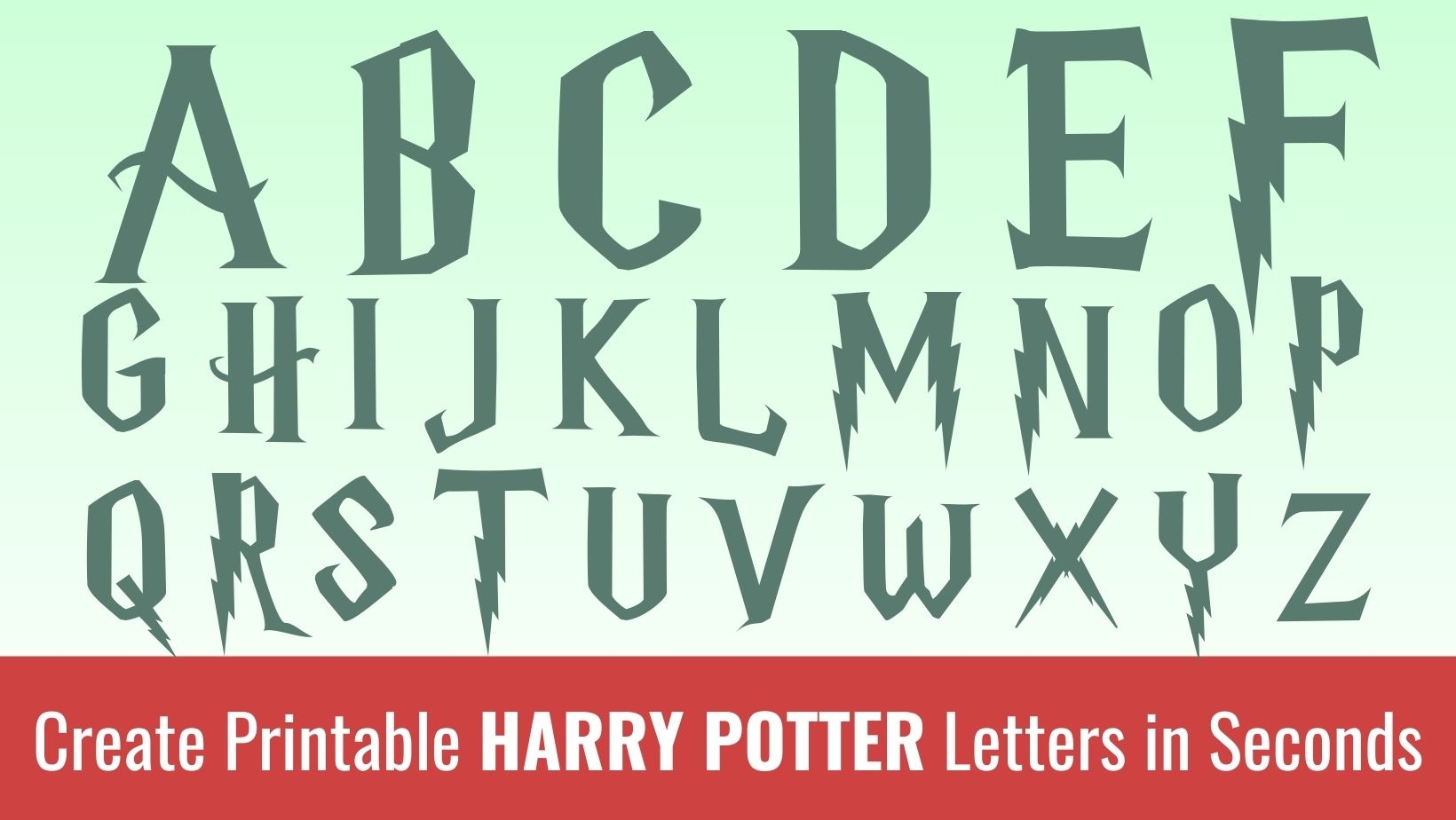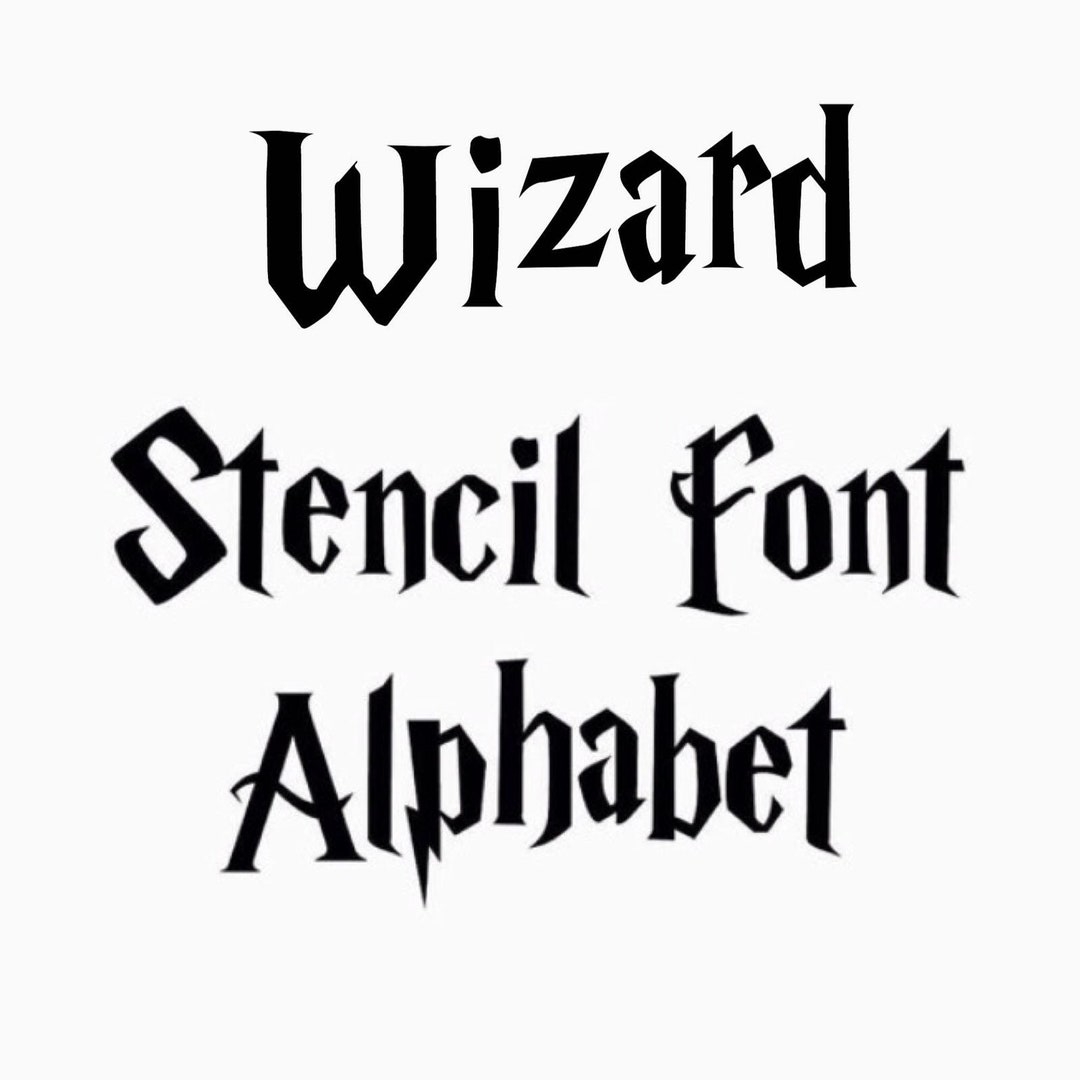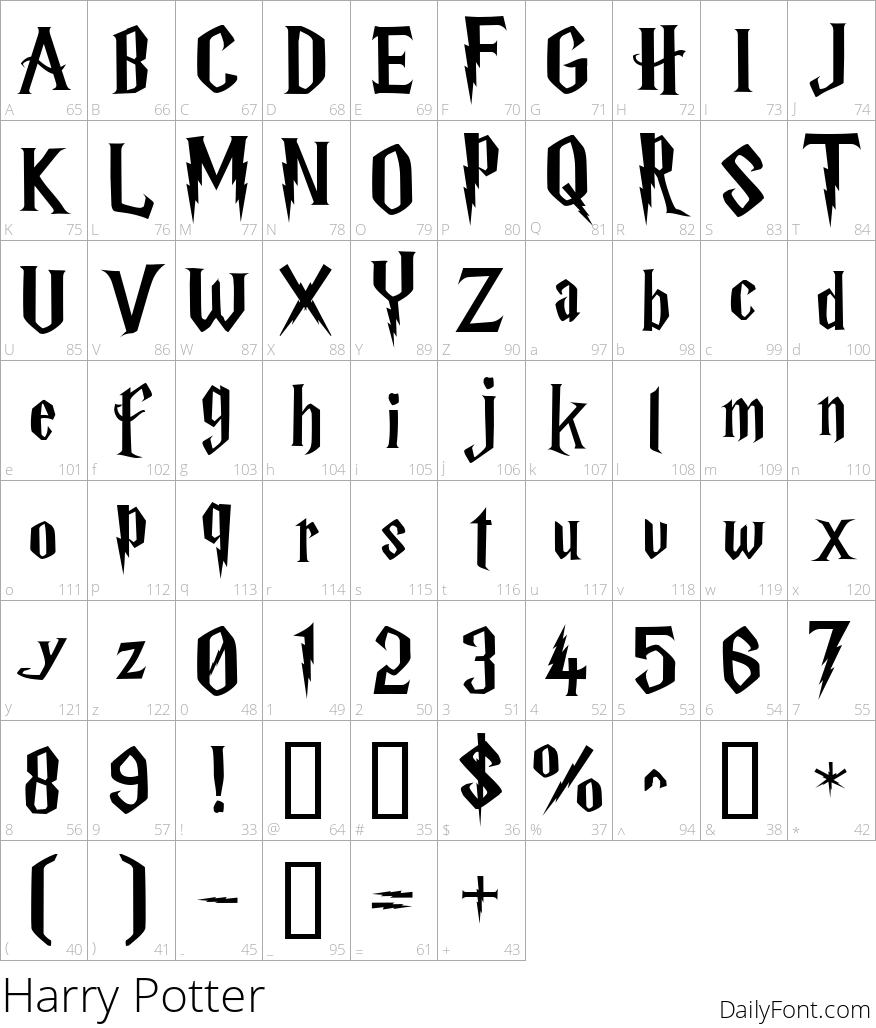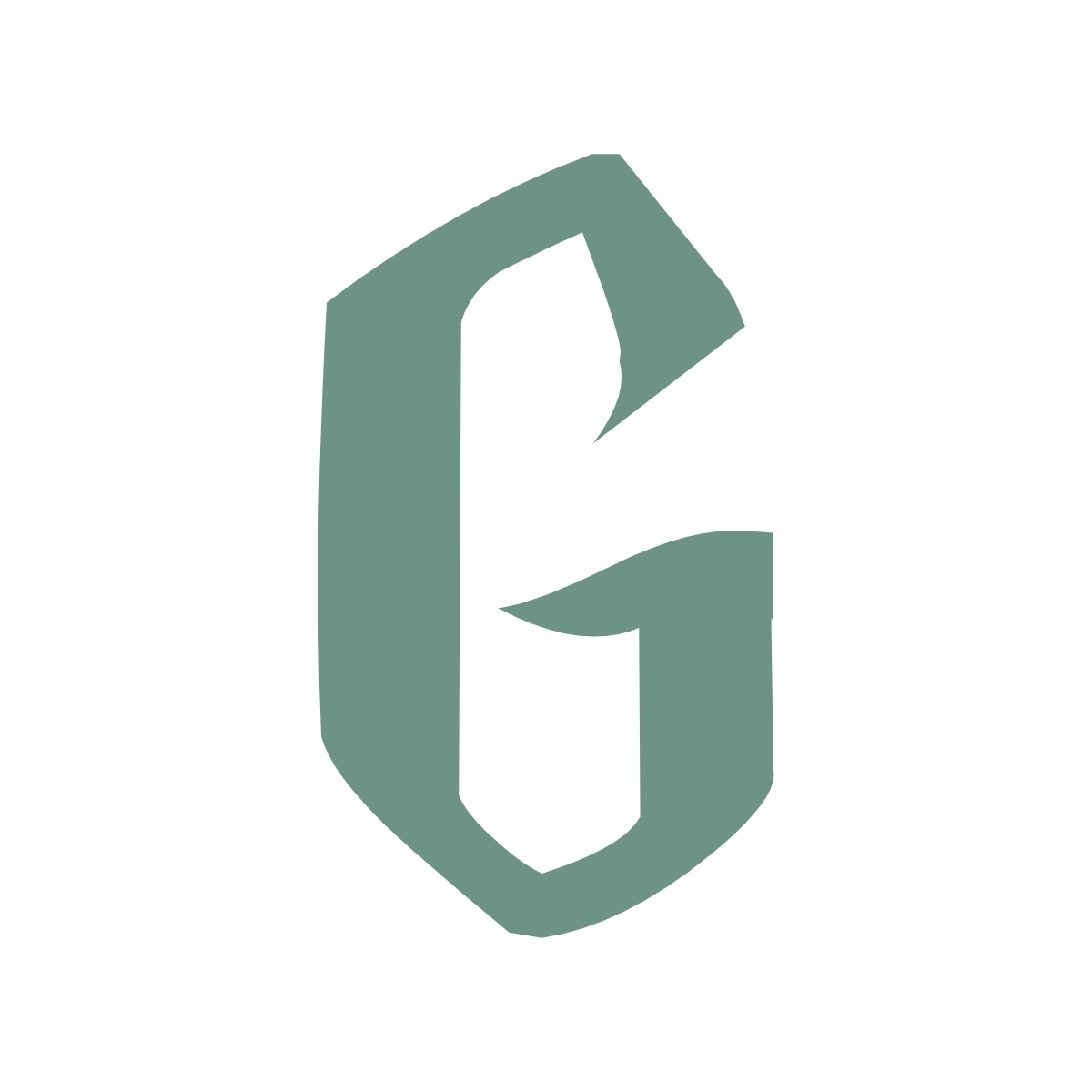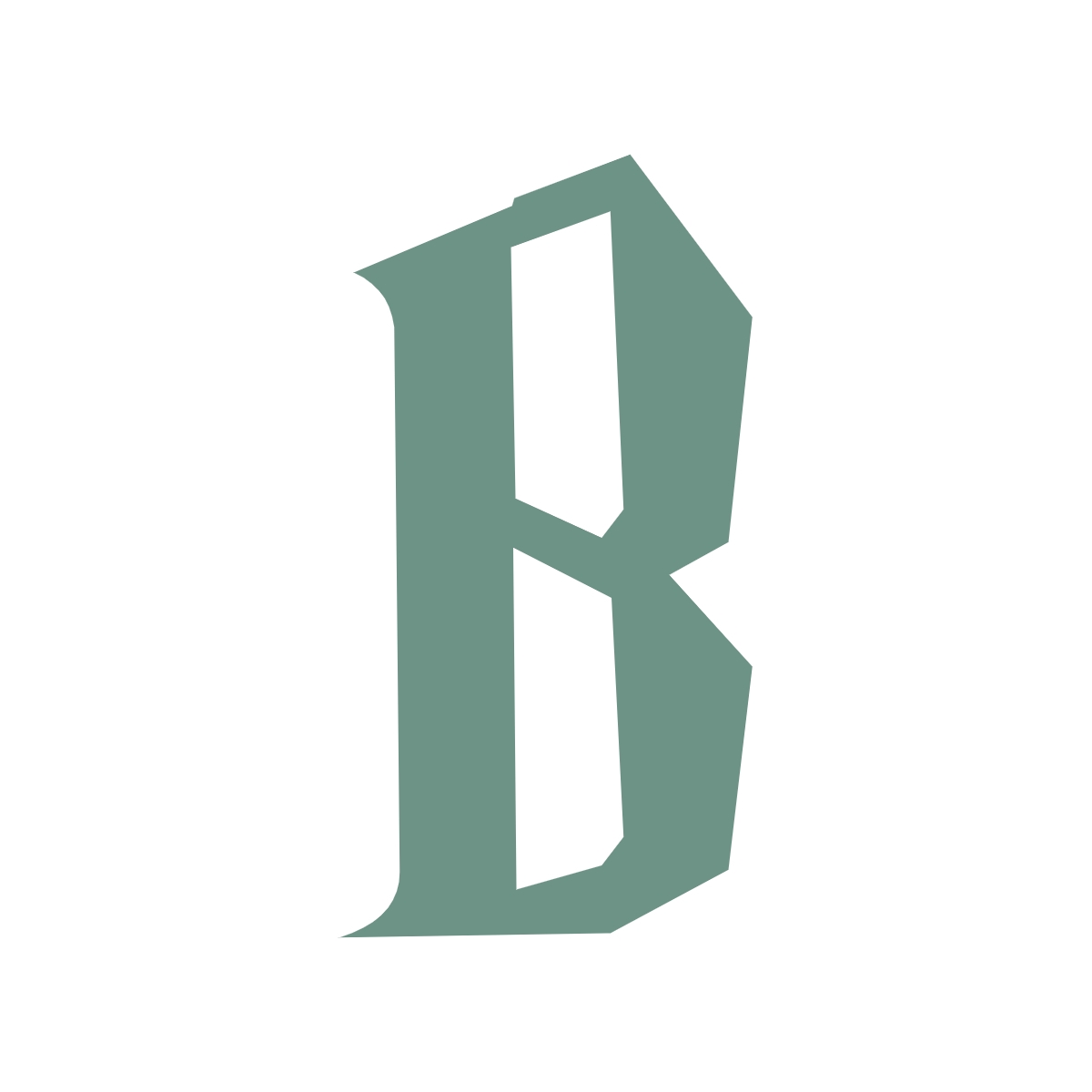
Harry Potter Font Stencil Printable
Are you a Harry Potter fan looking to add a magical touch to your DIY projects? Look no further! You can now download a Harry Potter font stencil printable to create personalized crafts and decorations inspired by the wizarding world.
Whether you’re planning a Harry Potter-themed party, creating custom t-shirts, or decorating your room, the Harry Potter font stencil printable is a versatile and fun tool to unleash your creativity. With just a few simple steps, you can bring a touch of Hogwarts into your everyday life.
Unlock Your Inner Wizard with a Harry Potter Font Stencil Printable
The Harry Potter font stencil printable features iconic symbols and letters from the beloved book series, allowing you to easily replicate the magical aesthetic in your projects. From spellbinding quotes to house emblems, the possibilities are endless when it comes to incorporating the Harry Potter font into your designs.
Simply download the stencil, print it out, and cut along the lines to create your own custom stencils. Then, use them with paint, markers, or even glitter to add a touch of wizardry to everything from notebooks to mugs. Let your imagination run wild as you bring the world of Harry Potter to life in your creations.
So why wait? Embrace your love for all things Harry Potter and start crafting with the Harry Potter font stencil printable today. Whether you’re a Gryffindor, Slytherin, Hufflepuff, or Ravenclaw, this versatile tool is sure to add a touch of magic to your projects and make them truly enchanting.